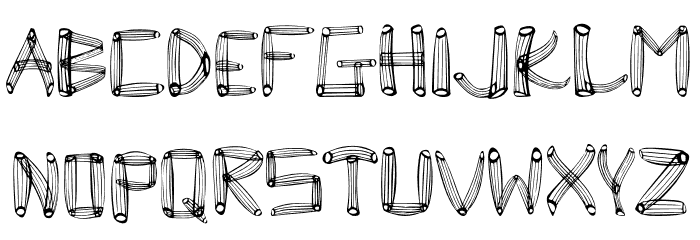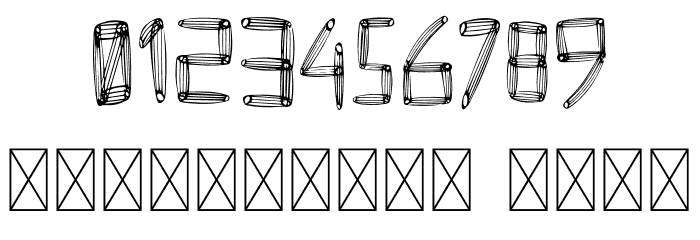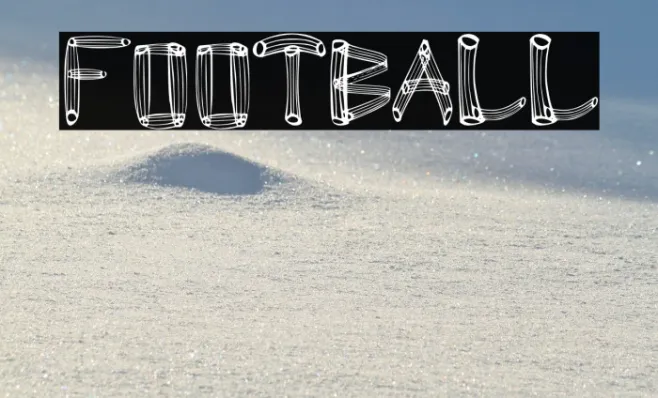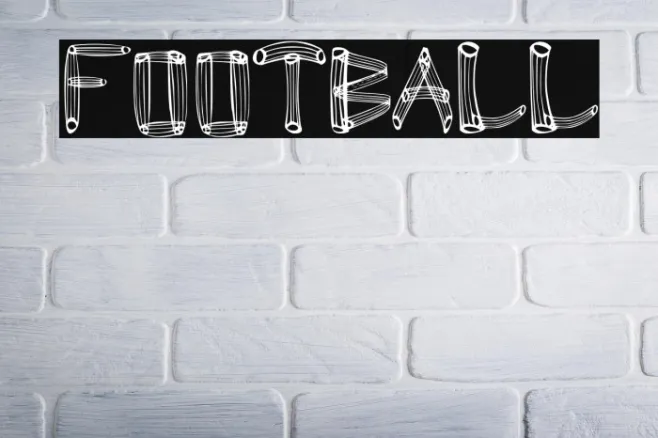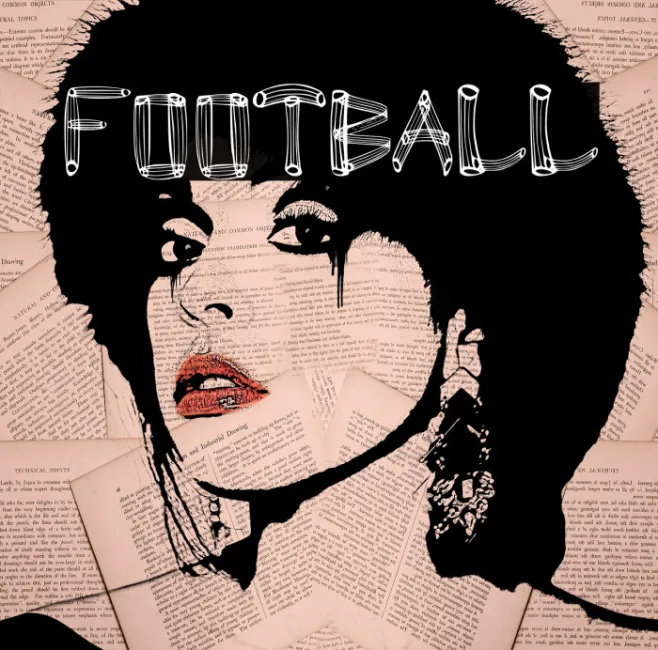
Football Font
This font features a playful and dynamic design, reminiscent of hand-drawn sketches. Each character is composed of multiple overlapping lines, creating a sense of movement and energy. The letters have a rounded, tubular appearance, giving them a three-dimensional look. This unique style is consistent across both uppercase and lowercase letters, as well as numbers and special characters. The font's informal and whimsical nature makes it stand out, offering a creative and artistic vibe.
A playful, hand-drawn font with a dynamic, tubular design.
- Font: Football
- Proposed Projects: Ideal for children's books, creative posters, playful branding, and artistic projects.
- Overall Style: Playful, Artistic